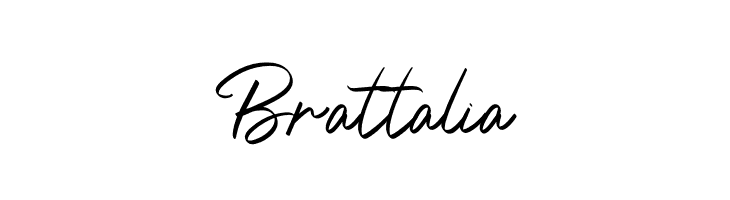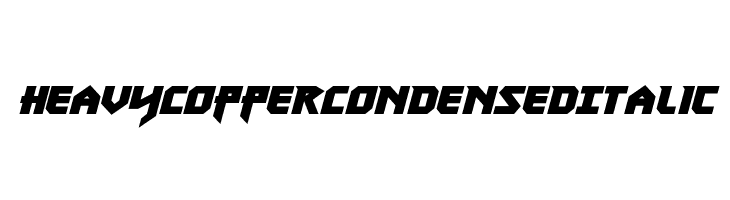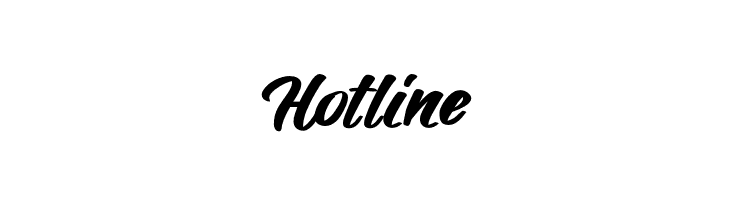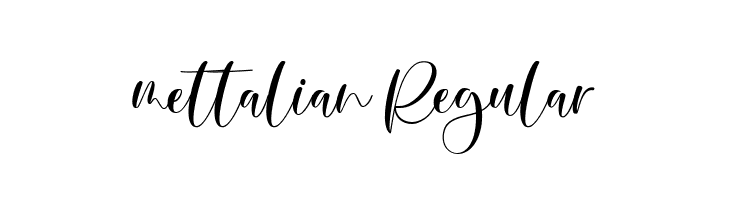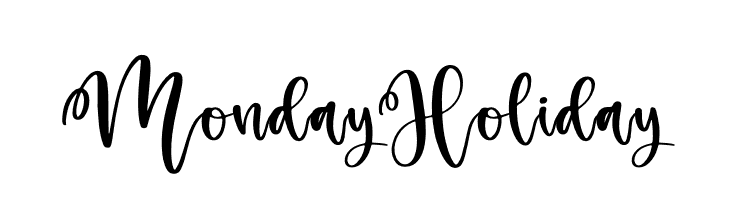
A modern, elegant script font with flowing, interconnected characters.
A bold, geometric font with a striped gradient effect.
A bold, geometric font with a halftone effect and modern aesthetic.
A hollow, inverse, decorative font with a futuristic and abstract style.
A sleek, modern italic font with elongated, rounded characters.
A playful, handwritten font with smooth curves and a casual style.
A bold, italicized font with angular, dynamic characters.
A modern, flowing cursive font with elegant connections and a dynamic style.
A sleek, minimalist typeface with thin, uniform strokes and clean lines.
A bold, cursive font with high contrast and fluid, interconnected letters.